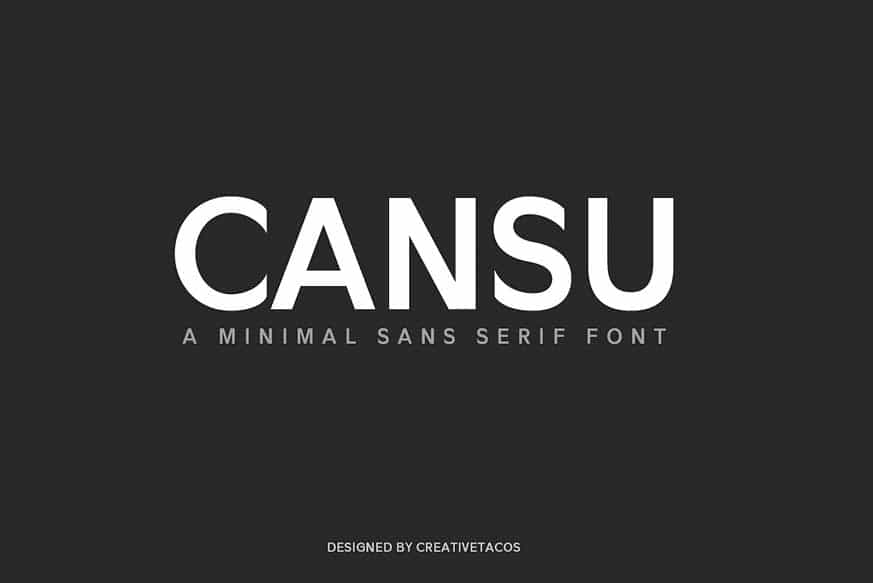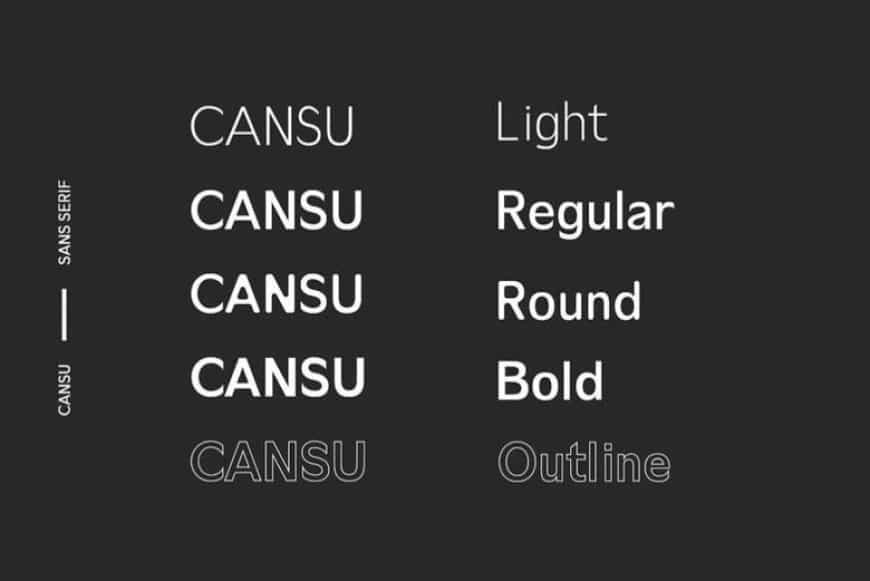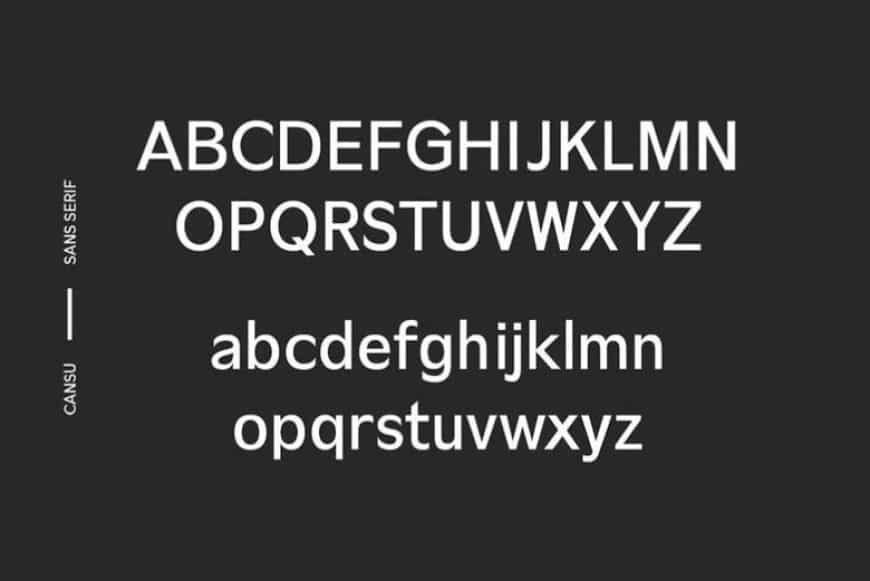
Cansu is classy yet minimal rounded sans family. It contains 5 weights: Regular, Light, Outline, Round, and Bold. Cansu is great for Packaging, Presentations, logo, headlines, lettering, posters, branding, quotes, titles magazines headings, web layouts, advertising, invitations, packaging design, books, and nearly any creative design.